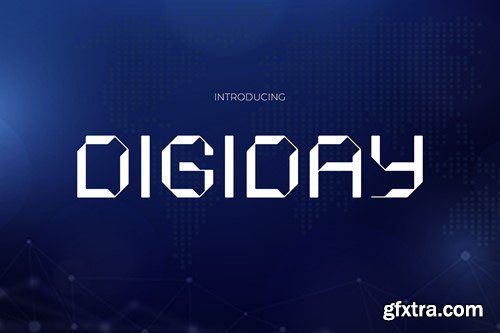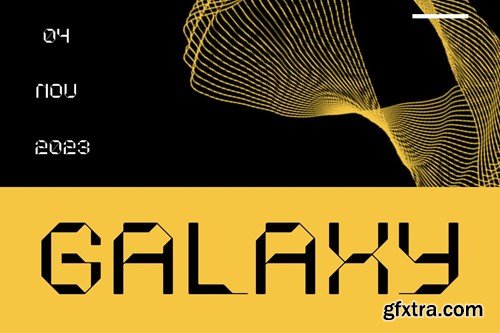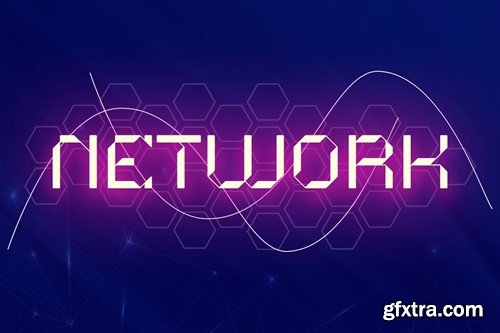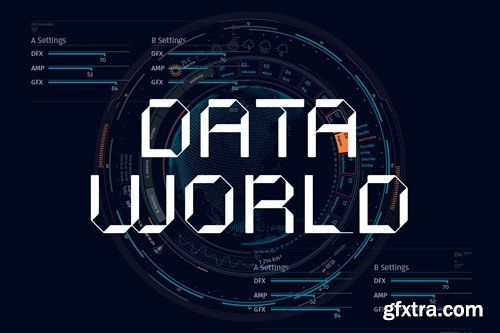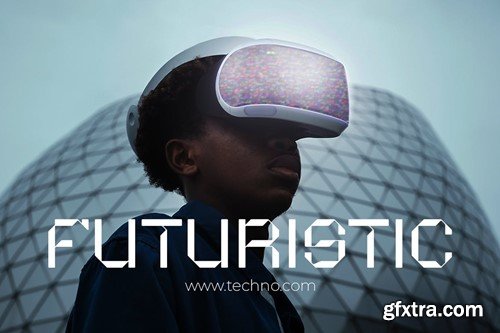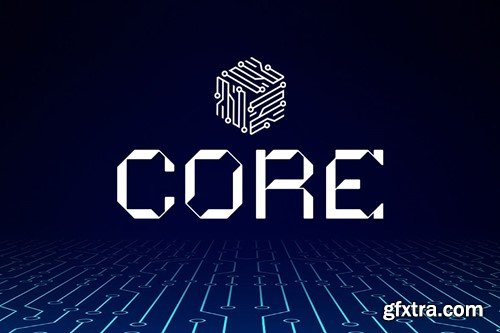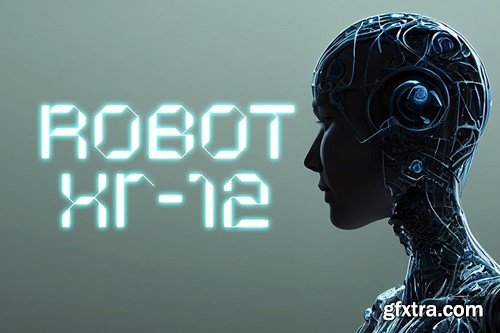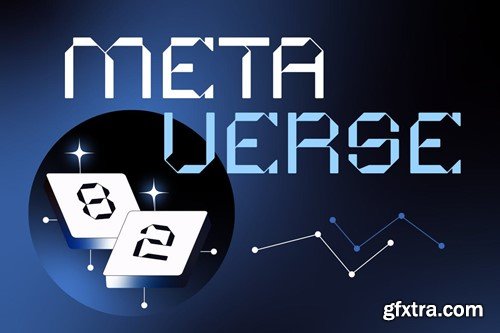
Digiday - 智能字体 H6EKVQK
Digiday - Futuristic Font H6EKVQK
Digiday - Futuristic Font
Step into the future with DIGIDAY – the font that embodies futuristic elegance in a sleek display style! Perfect for those who envision a cutting-edge aesthetic in their designs, DIGIDAY seamlessly blends modern sophistication with a hint of avant-garde flair. Whether you're in the world of fashion, crafting standout logos, or curating stylish quotes, DIGIDAY is your key to transforming invitations, posters, greeting cards, packaging, branding, cover albums, events, and postcards into futuristic masterpieces. Elevate your creative projects with this font that transcends time and pushes the boundaries of contemporary design